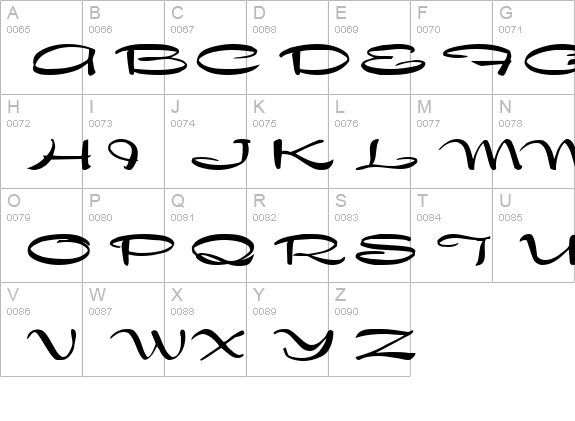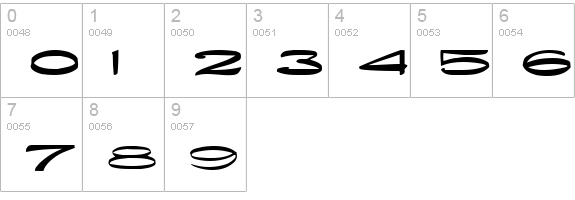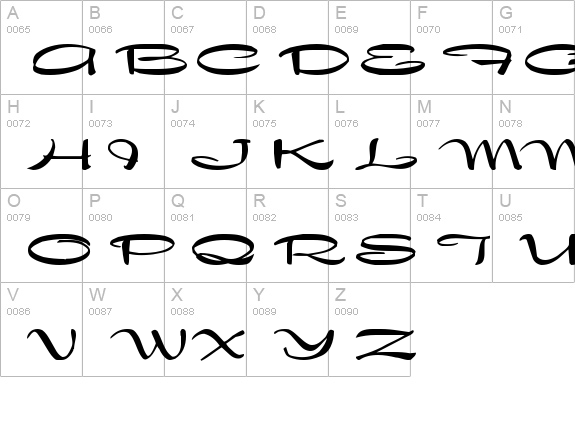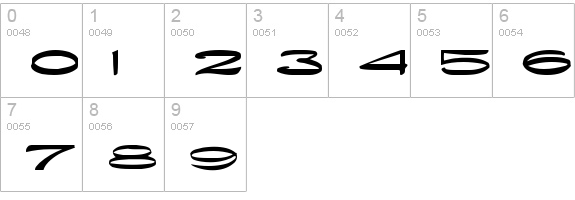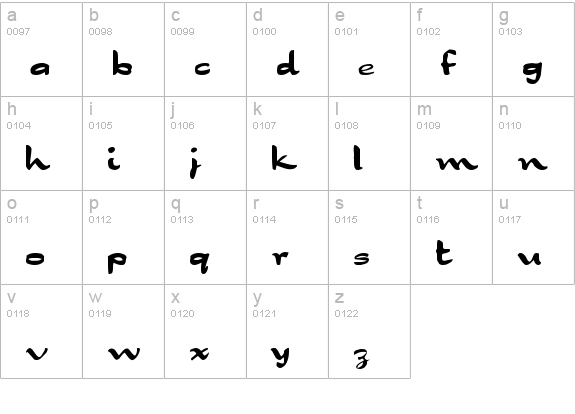
DragonWick Bold Font Details
DragonWick Bold is a strong, high-contrast variant in the DragonWick typeface family \xE2\x80\x94 well suited to headlines, attention-grabbing titles, and strong calls-to-action.
DragonWick Bold is a striking and powerful display font that commands attention with its bold and dynamic presence. Its sharp edges and intricate details give it a unique and modern feel, making it perfect for headlines, titles, and branding projects that require a touch of sophistication and strength. This font exudes a sense of confidence and authority, while still maintaining a touch of elegance and flair. Its versatile design allows it to be used in a variety of settings, from digital platforms to print media, ensuring that your message will always stand out and leave a lasting impression. And the best part? DragonWick Bold is available for free download at FontsMarket.com, making it easily accessible to designers and creatives looking to add a touch of boldness to their projects without breaking the bank. Don't miss out on this fantastic opportunity to elevate your designs with this exceptional font!